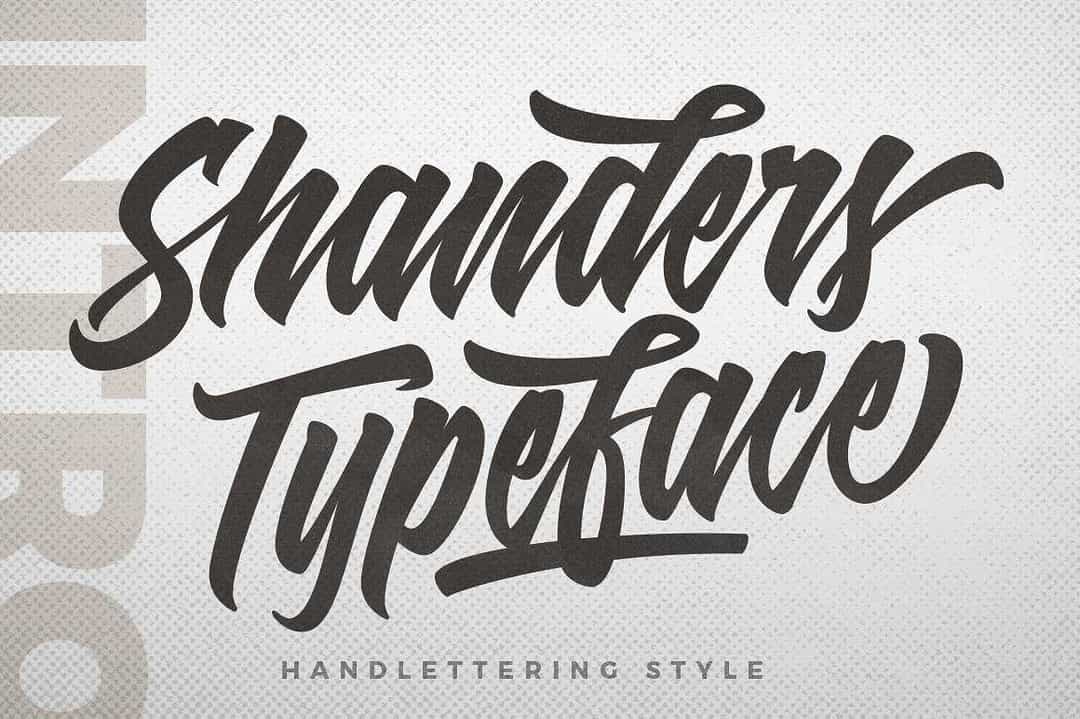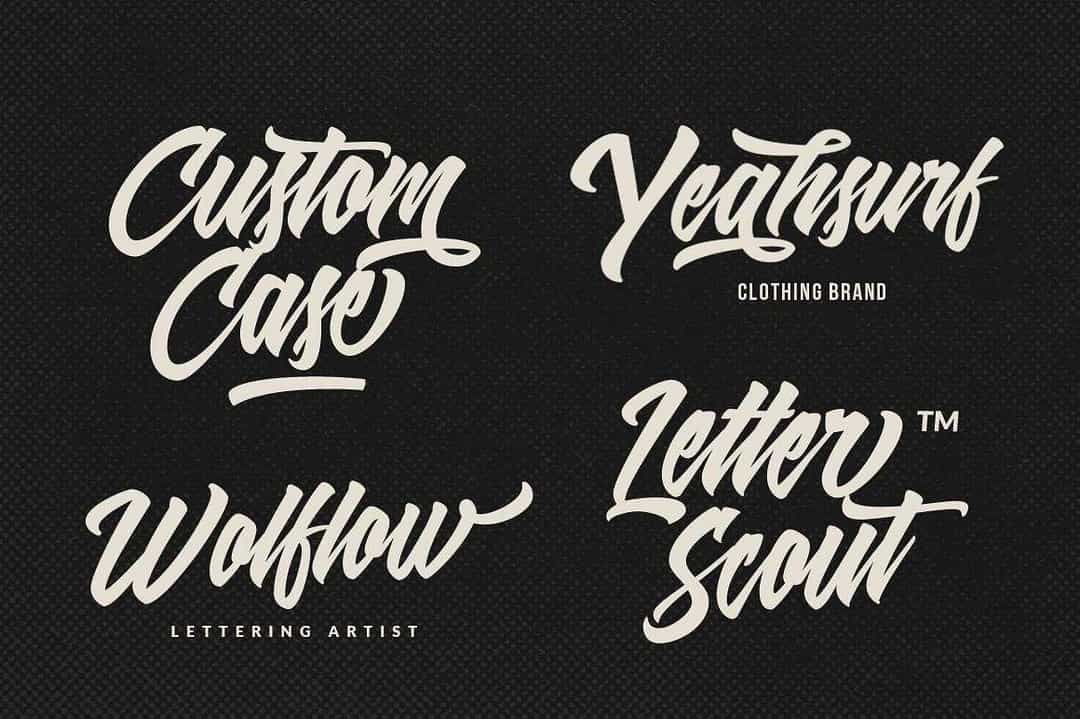
Introducing Shanders handwriting font. Originally drawn and released at Dirtyline Studio, Shanders is a hand-painted typeface with Clean Brush authentic stroke defects, designed with a very bouncy base. especially for logos, handwritten quotes, headers of the product packaging, posters, sales of merchandise, and greeting cards it has additional features such as complementary marker font and Swash characters for use in social media & greeting cards.